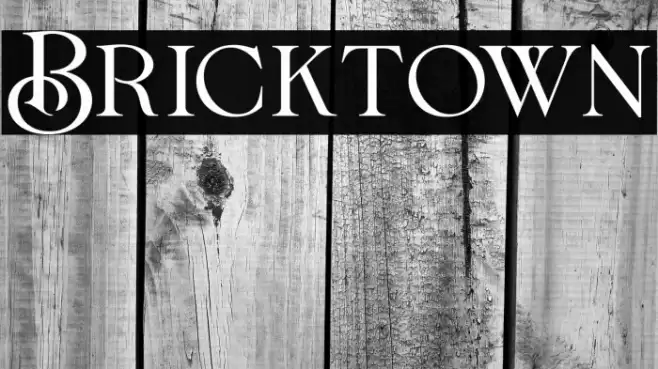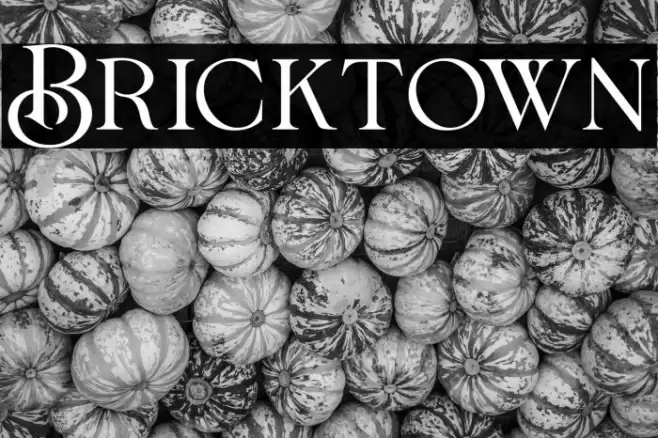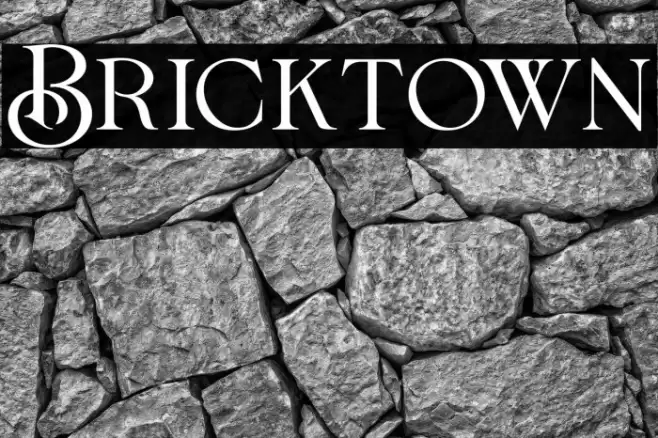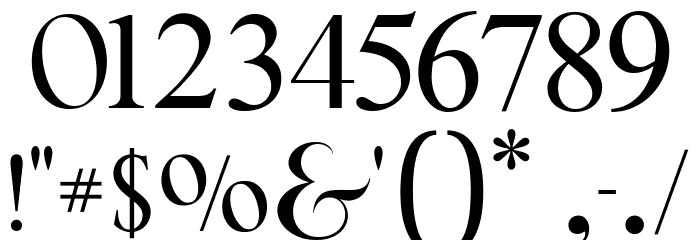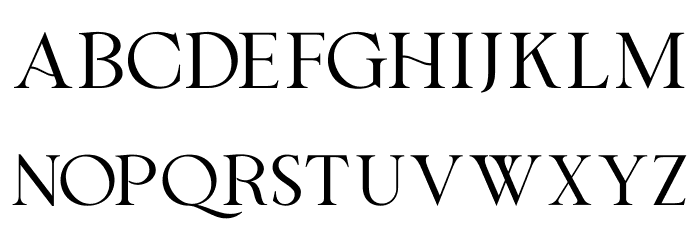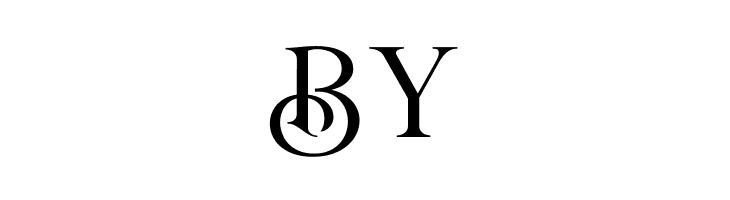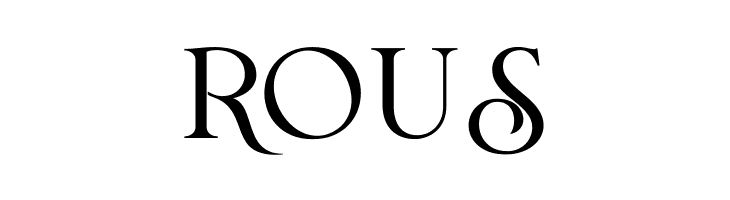
Bricktown Font
Bricktown Description
This font features a sophisticated blend of classic serif elements with a modern twist. The uppercase letters exhibit elegant flourishes and swashes, particularly noticeable in characters like 'B', 'R', and 'S', adding a decorative flair. The lowercase letters maintain a more traditional serif style, providing a balanced contrast to the ornate capitals. Numerals are designed with a classic serif touch, ensuring readability while maintaining the overall aesthetic. The special characters are crafted with attention to detail, complementing the font's elegant style. This font is ideal for projects that require a touch of sophistication and class, such as branding, invitations, and editorial design.
A sophisticated serif font with elegant flourishes and classic elements from Regular fonts.
- Proposed Projects: Ideal for branding, invitations, editorial design, and luxury packaging.
- Overall Style: Classic
- Use Case: Headlines, Logos, Invitations